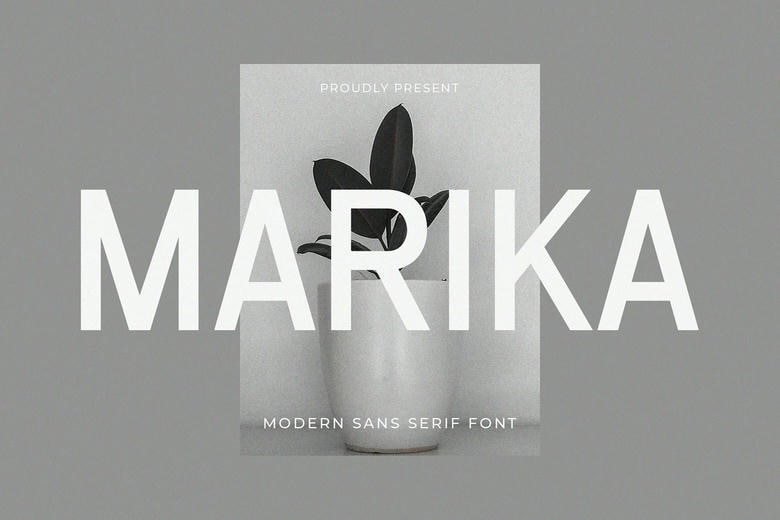
Marika Font
Marika is a special and exquisite sans serif font. It is beautiful on any of the designs that may need a customized approach, including wedding invitations, thank you cards, weddings, greeting cards, logos, etc.
Marika Sans Serif Font